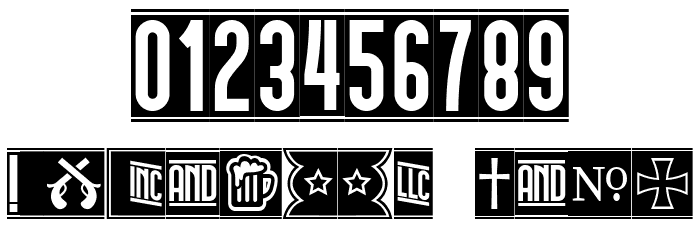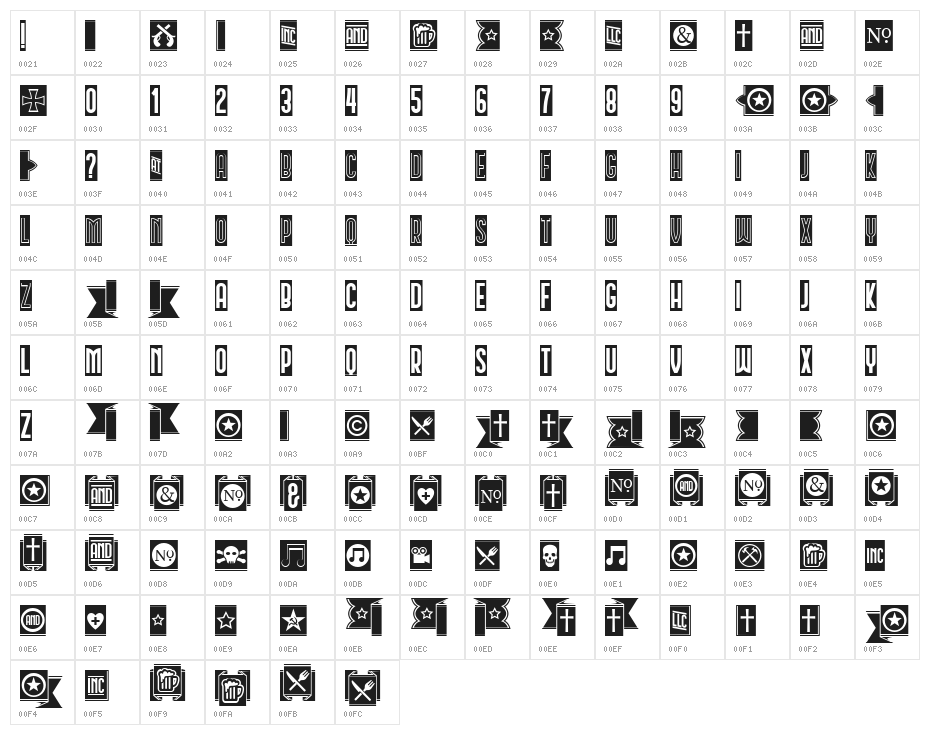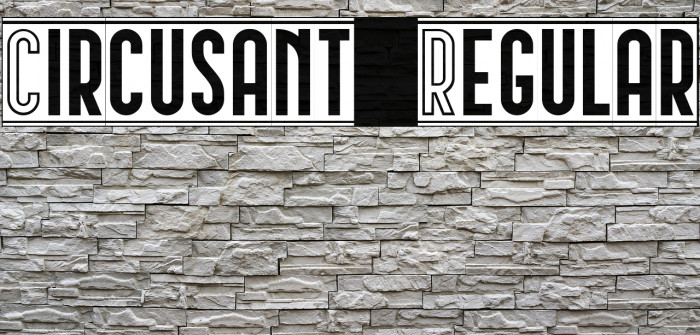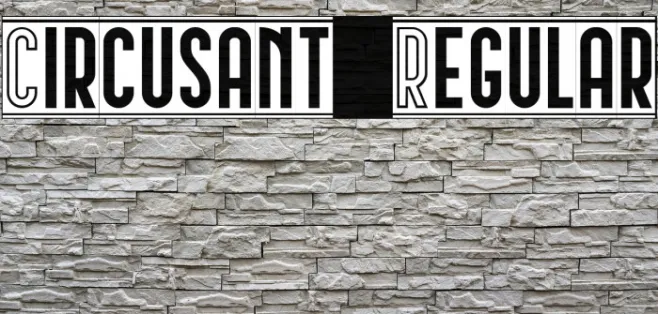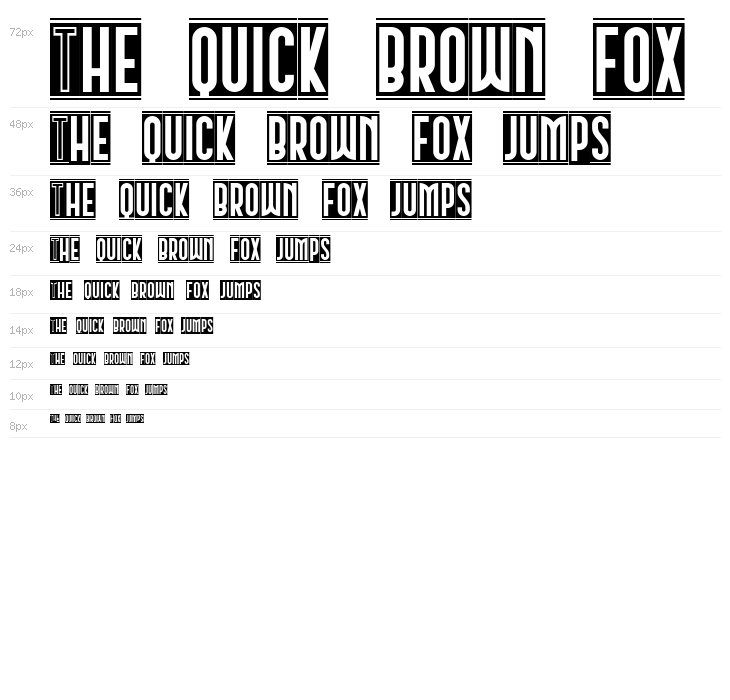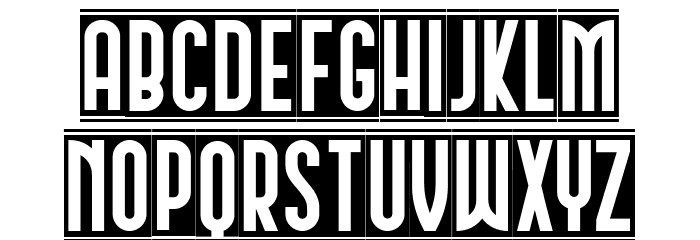
Circusant Regular Font
Circusant Regular Description
This font features a bold, decorative style with a vintage flair, reminiscent of classic circus and carnival signage. The uppercase letters are tall and narrow, with a distinct shadow effect that adds depth and dimension. The characters are enclosed in rectangular boxes, enhancing their bold appearance. The numbers follow the same stylistic approach, maintaining consistency across the typeface. The special characters are uniquely designed, incorporating elements like stars and crosses, which contribute to the overall playful and nostalgic aesthetic.
| Proposed Projects | Ideal for projects that require a vintage or playful theme, such as posters, event invitations, or branding for entertainment venues. |